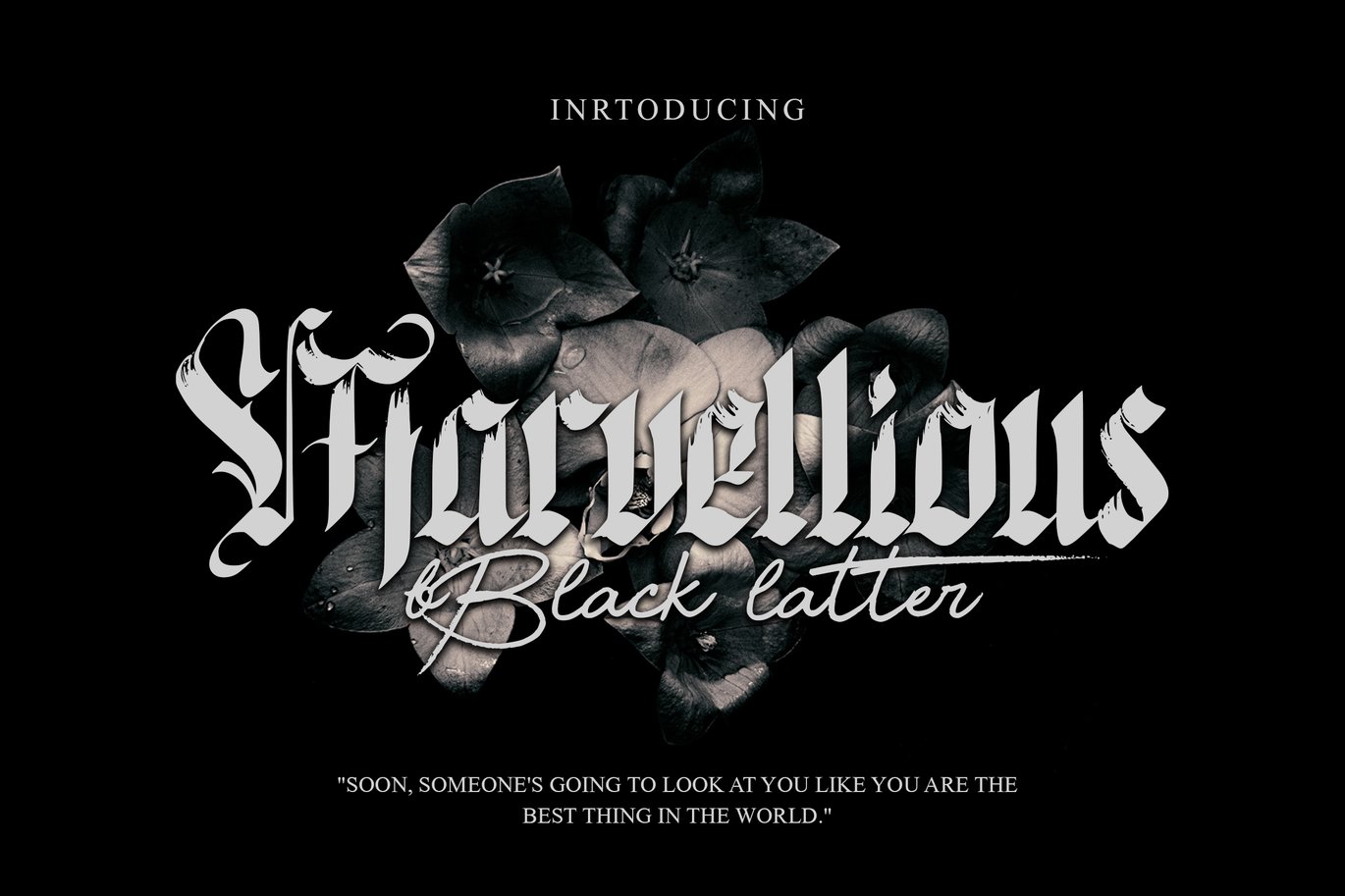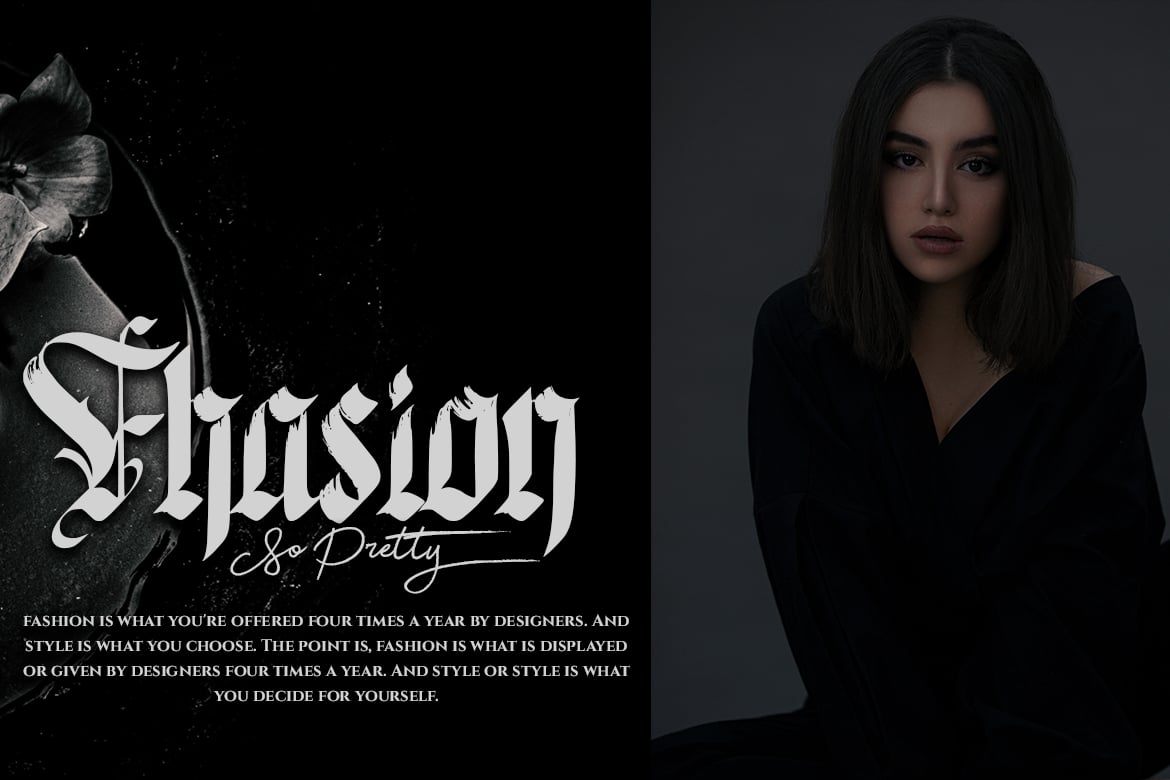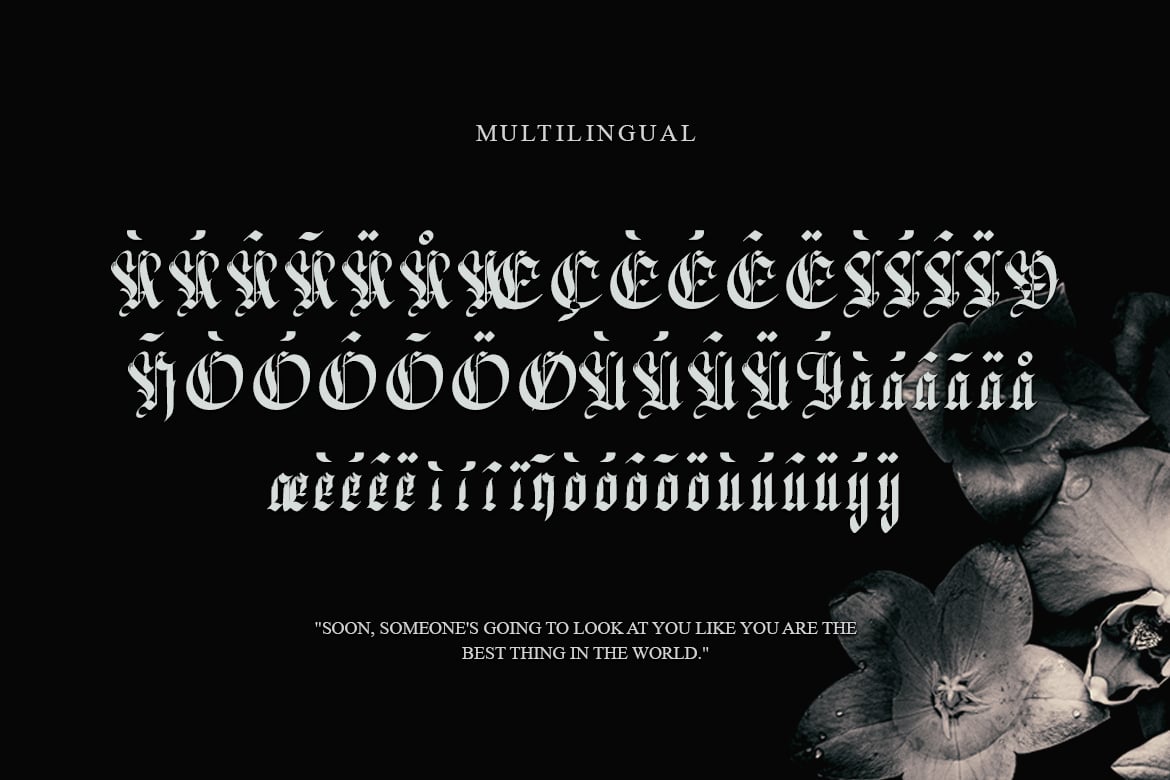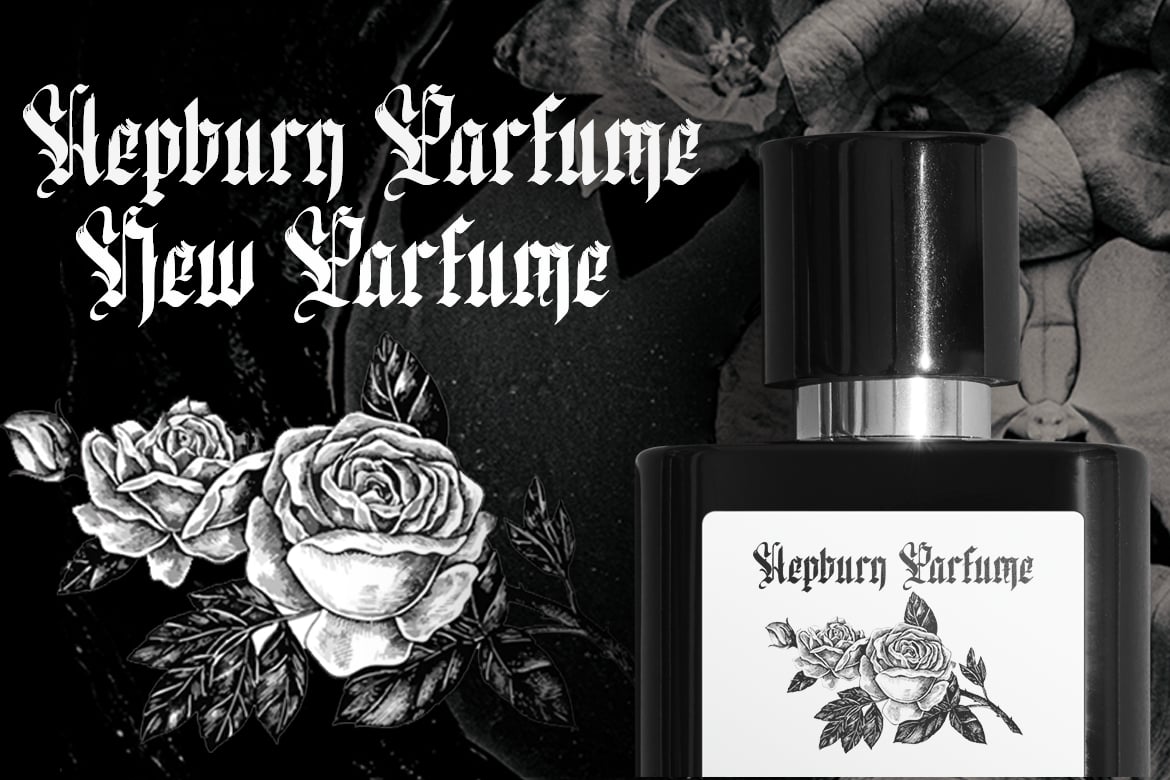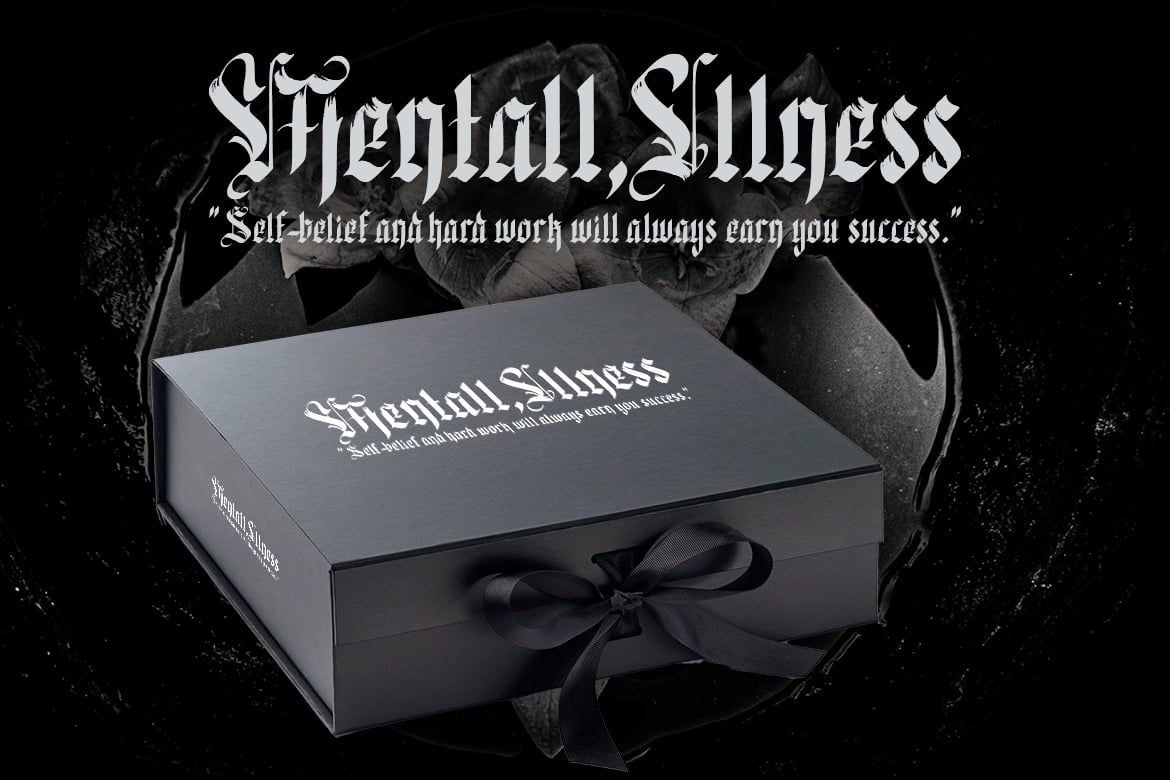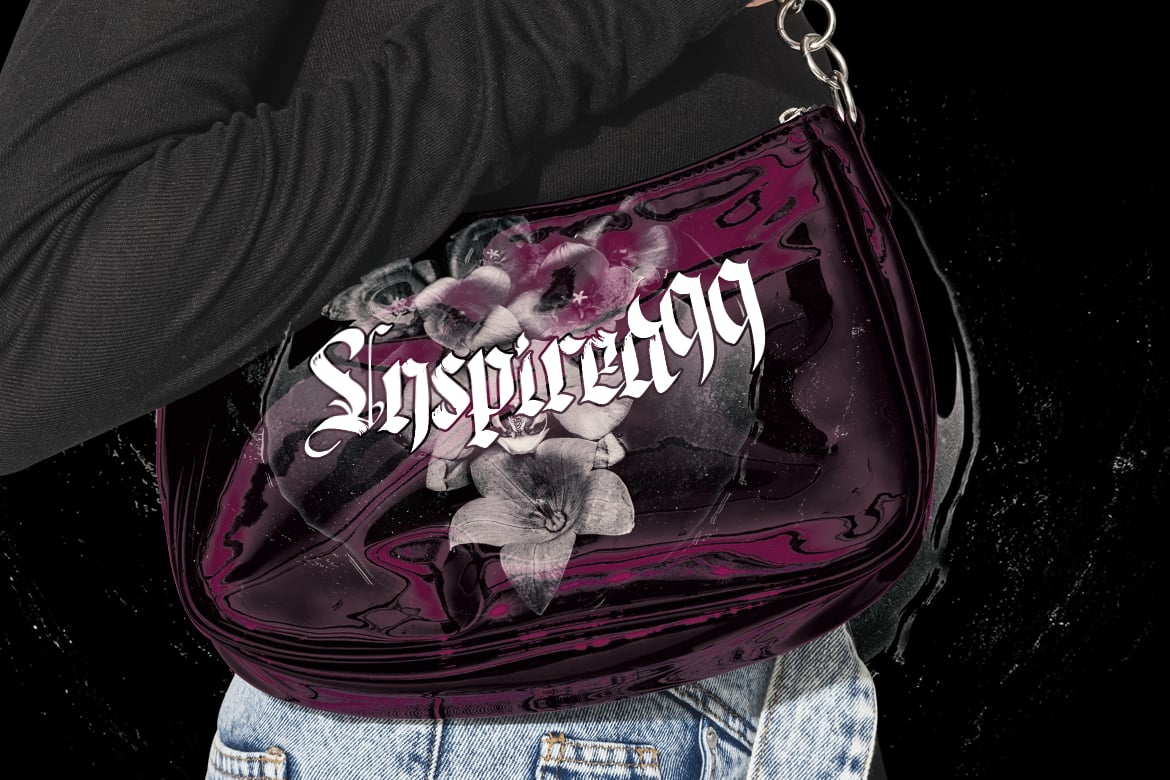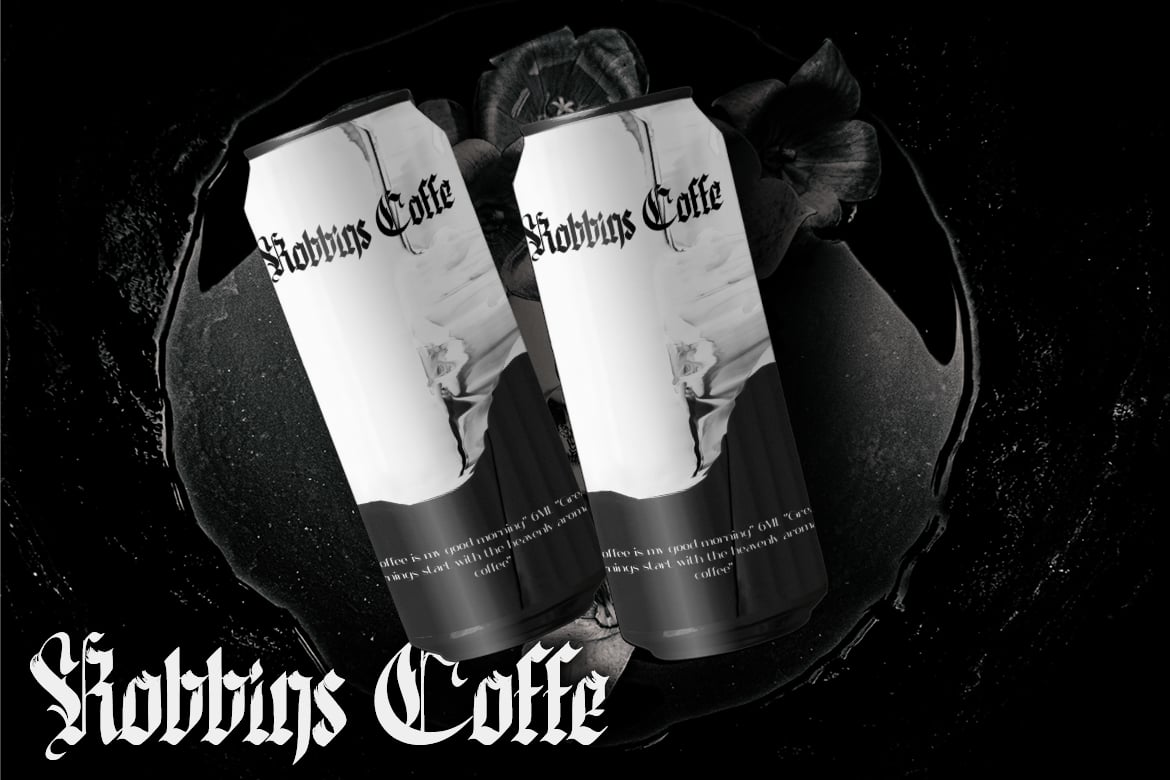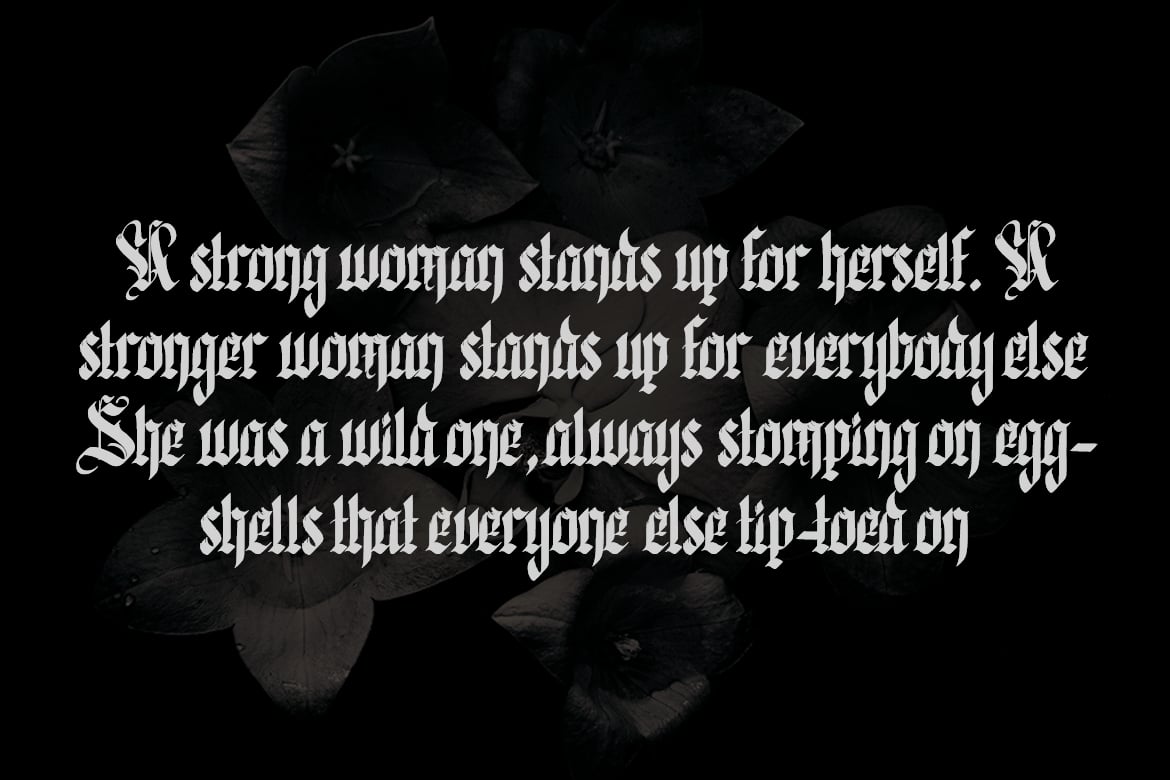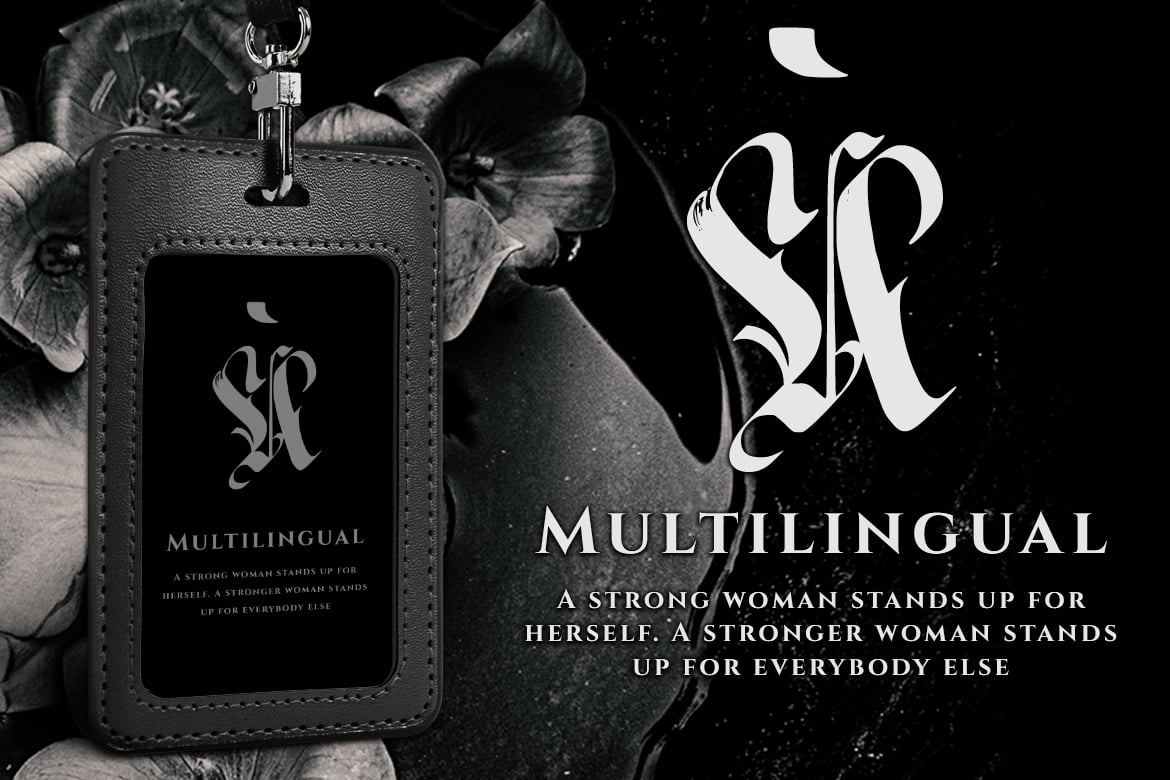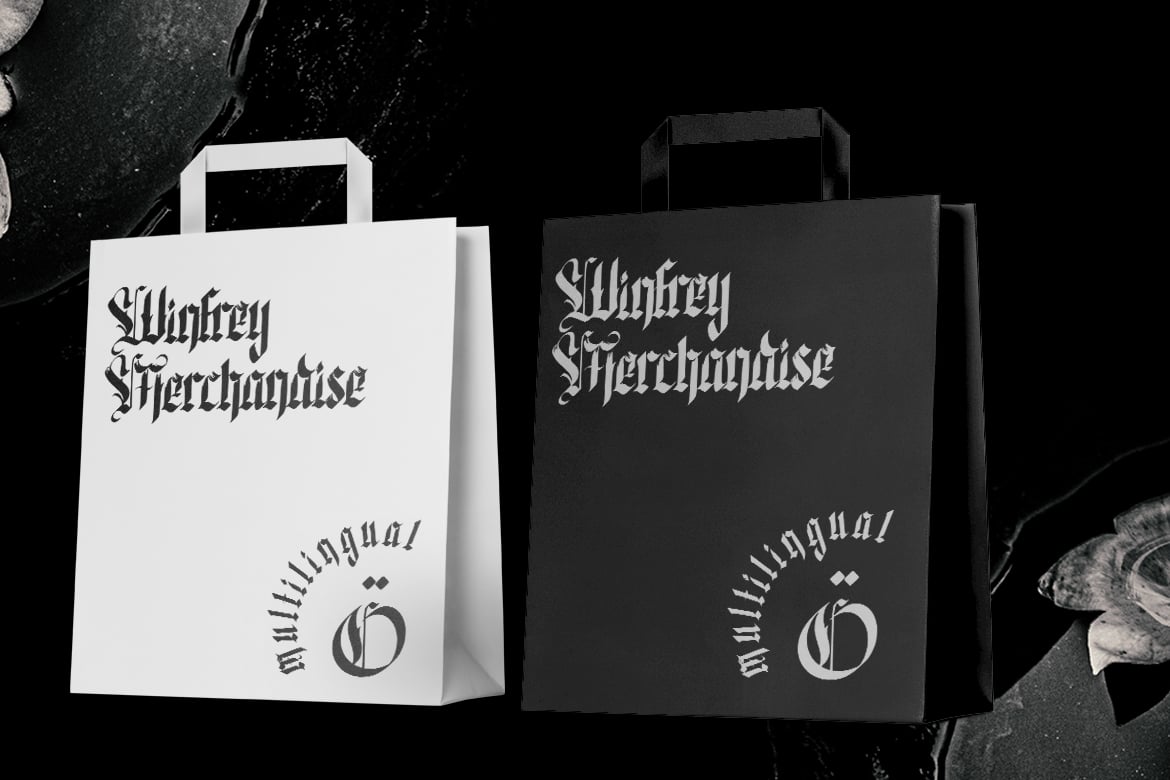
Marvellious – Blackletter Typeface
Marvellious is an elegant and classic blackletter font that will impress with its stylish features. Use it for product packaging, branding, or other projects that need bold and daring typography!
- Multilingual Supports